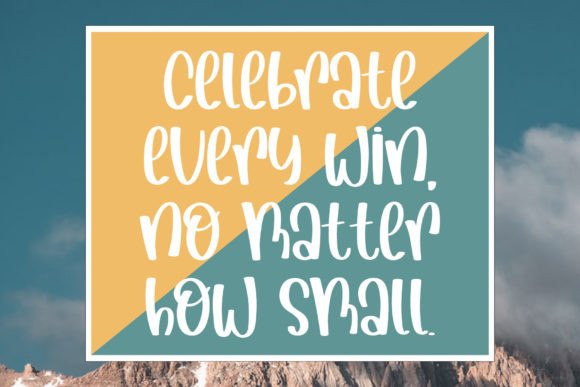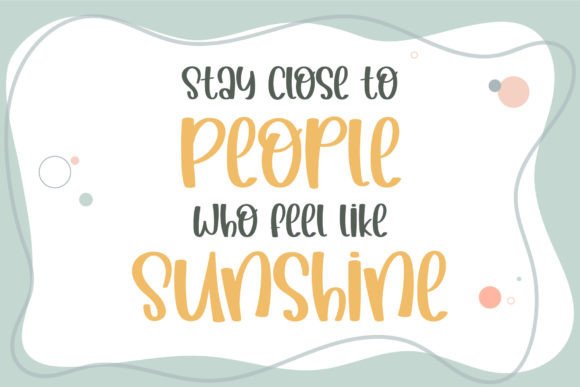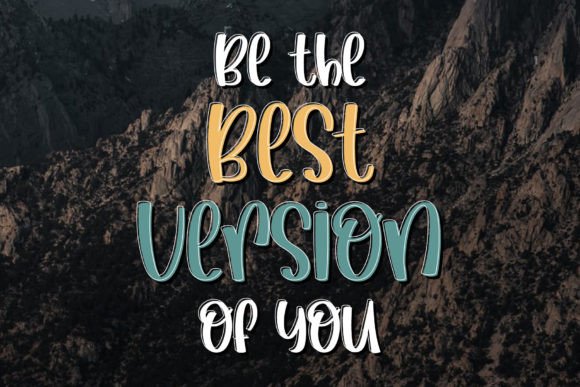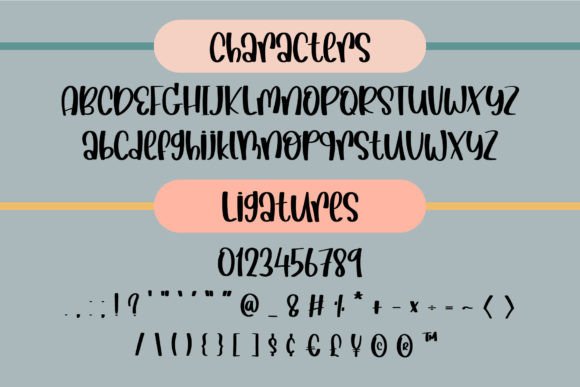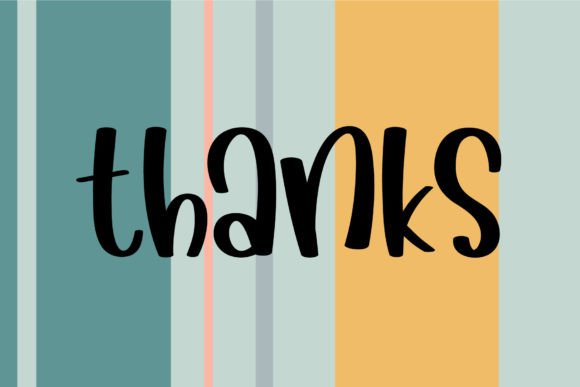
Gather Highway Font
“Gather Highway” is a cute and casual handwritten font that exudes an incredibly friendly feel. This font is designed to be versatile, making it suitable for various applications, from Instagram posts to fun DIY projects. With its laid-back and approachable style, Gather Highway has the power to turn any creative idea into a true piece of art.
The casual and handwritten charm of Gather Highway brings a personal and authentic touch to your designs. Whether you’re crafting social media graphics for Instagram or engaging in creative DIY projects, this font adds a playful and friendly vibe.
Gather Highway’s versatility shines through in its ability to adapt to different creative contexts. Its cute and casual demeanor makes it an ideal choice for projects that demand a relaxed and approachable aesthetic. From digital designs to physical crafts, this font effortlessly enhances the overall appeal of your creations.
Incorporate Gather Highway into your creative endeavors and witness how it transforms your ideas into true pieces of art. Let it be the font that adds a touch of cuteness and friendliness, making your designs not only visually appealing but also engaging and relatable. With its casual charm, Gather Highway becomes a valuable tool for turning creative concepts into delightful and authentic works of art.